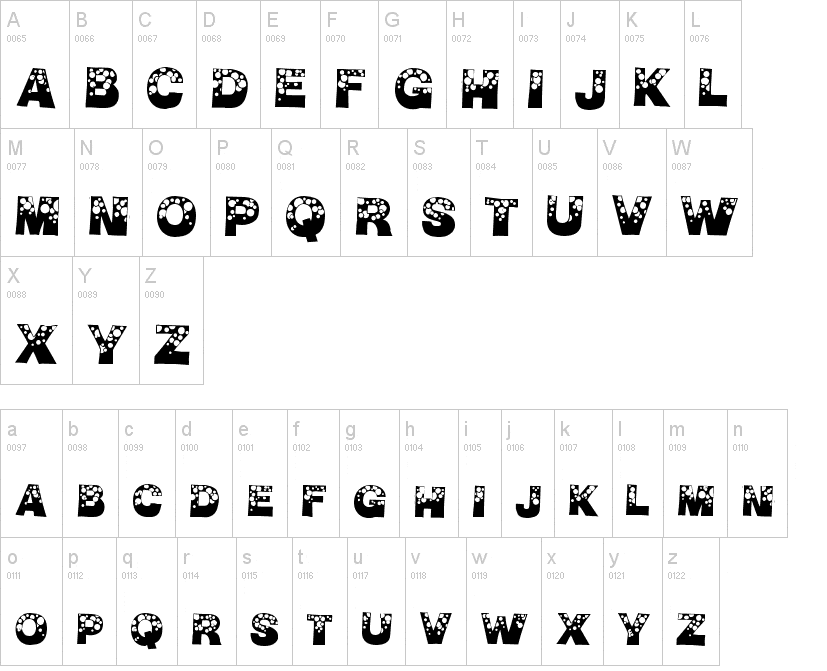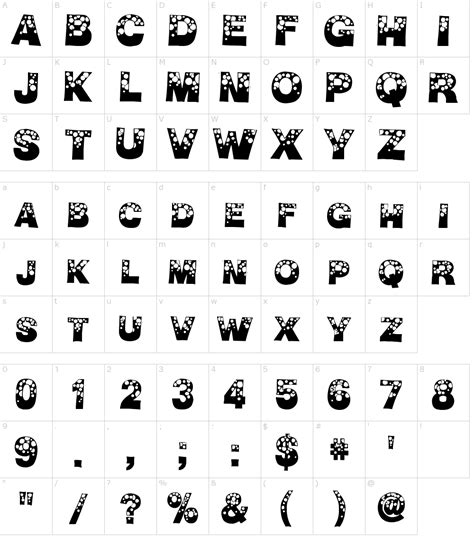
Bubble Man Font . Bubble man is a fun and quirky font that was inspired by the bubbly shapes of soap bubbles. 129,725 downloads (5 yesterday) free for personal use.
By brain eaters at aug 03, 2018. Bubbleman by brain eaters font co. 129,725 downloads (5 yesterday) free for personal use.
By brain eaters at aug 03, 2018. Remember that classic robot monster film? Web 1001fonts general font usage terms. Web bubbleman font is a bubbles font and was created on aug 25, 1998.
Bubble Man Font - Web bubbleman font is a bubbles font and was created on aug 25, 1998. Remember that classic robot monster film? By brain eaters at aug 03, 2018. Bubble man is a fun and quirky font that was inspired by the bubbly shapes of soap bubbles. 129,725 downloads (5 yesterday) free for personal use.
Bubble Man Font - Bubble man is a fun and quirky font that was inspired by the bubbly shapes of soap bubbles. Bubbleman by brain eaters font co. Web the bubble man font has been downloaded 16,825 times. Remember that classic robot monster film? Since then, it has been downloaded 19,236 times.
Bubble Man Font - Bubbleman by brain eaters font co. Bubble man is a fun and quirky font that was inspired by the bubbly shapes of soap bubbles. Web the bubble man font has been downloaded 16,825 times. Web 1001fonts general font usage terms. Remember that classic robot monster film?
Bubble Man Font - Bubble man is a fun and quirky font that was inspired by the bubbly shapes of soap bubbles. Remember that classic robot monster film? 129,725 downloads (5 yesterday) free for personal use. Web the bubble man font has been downloaded 16,825 times. By brain eaters at aug 03, 2018.
Bubble Man Font - Web the bubble man font has been downloaded 16,825 times. Since then, it has been downloaded 19,236 times. Bubbleman by brain eaters font co. 2 file (s) download free for personal use only. Bubble man is a fun and quirky font that was inspired by the bubbly shapes of soap bubbles.
Bubble Man Font - Web the bubble man font has been downloaded 16,825 times. Remember that classic robot monster film? Bubble man is a fun and quirky font that was inspired by the bubbly shapes of soap bubbles. Web bubbleman font is a bubbles font and was created on aug 25, 1998. 2 file (s) download free for personal use only.
Bubble Man Font - Remember that classic robot monster film? By brain eaters at aug 03, 2018. Web the bubble man font has been downloaded 16,825 times. Web bubbleman font is a bubbles font and was created on aug 25, 1998. 129,725 downloads (5 yesterday) free for personal use.
Bubble Man Font - 2 file (s) download free for personal use only. Bubble man is a fun and quirky font that was inspired by the bubbly shapes of soap bubbles. Remember that classic robot monster film? By brain eaters at aug 03, 2018. Web bubbleman font is a bubbles font and was created on aug 25, 1998.
Bubble Man Font - Web 1001fonts general font usage terms. By brain eaters at aug 03, 2018. 129,725 downloads (5 yesterday) free for personal use. 2 file (s) download free for personal use only. Remember that classic robot monster film?
Bubble Man Font - By brain eaters at aug 03, 2018. Web the bubble man font has been downloaded 16,825 times. Bubbleman by brain eaters font co. 129,725 downloads (5 yesterday) free for personal use. Remember that classic robot monster film?
Bubble Man Font - 2 file (s) download free for personal use only. Since then, it has been downloaded 19,236 times. 129,725 downloads (5 yesterday) free for personal use. By brain eaters at aug 03, 2018. Bubbleman by brain eaters font co.
Bubble Man Font - Remember that classic robot monster film? Since then, it has been downloaded 19,236 times. Web 1001fonts general font usage terms. 2 file (s) download free for personal use only. By brain eaters at aug 03, 2018.
Bubble Man Font - Since then, it has been downloaded 19,236 times. Web 1001fonts general font usage terms. Bubble man is a fun and quirky font that was inspired by the bubbly shapes of soap bubbles. Web the bubble man font has been downloaded 16,825 times. Remember that classic robot monster film?
Bubble Man Font - 2 file (s) download free for personal use only. Web the bubble man font has been downloaded 16,825 times. Bubbleman by brain eaters font co. Web 1001fonts general font usage terms. Remember that classic robot monster film?